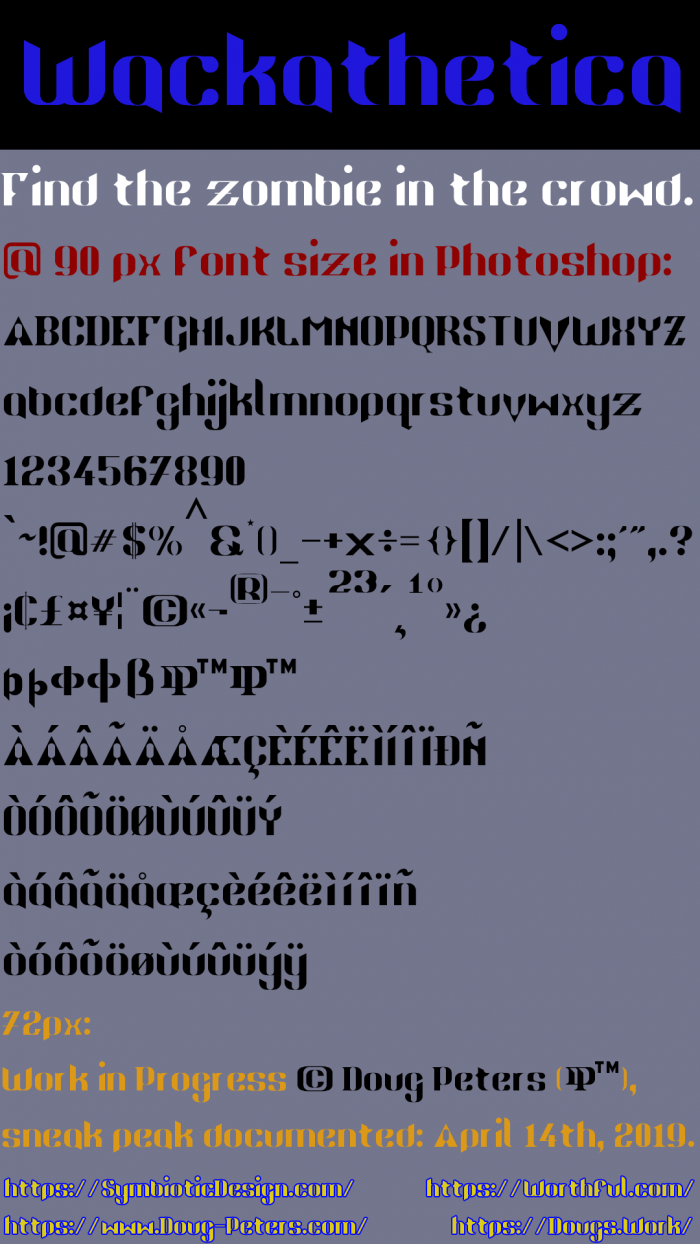
•  Wackathetica is derived from Struck, both fonts were created by me (Doug Peters).
Wackathetica gets its name from the idea that I borrowed styling cues from serif, slab serif, and sans serif, even goth cuts and rounded font typographic designs to make a pretty wacky typeface.  A couple of alternates are included in the unicode Halfwidths and Fullwidths register.
Vertical lines are thick, horizontal lines are skinny.
I classify it as: Hybrid, Semi-Serif, Casual.
Weight: Extrabold.
Originally, I went in to kern Struck, but before I did, as this is one of my eldest fonts, I decided trying to improve it.  But then, I started noticing a nice little design I was trying to do, but wouldn't work with the overall design, so I cloned it and created a new font.  But then, I started changing how I was wanting that one to look, too.  So I created yet another clone... this one, Wackathetica.
Now, maybe I'm crazy, but I cannot find the second clone.  ???
I had this written in the description...
"Wackathetica is derived from , which is derived from Struck, all fonts created by Doug Peters."
Only, I can't find it.  So, maybe I am crazy.  That is worrisome.  Argh.  Just as I hit retirement I start losing my mind.
Note to self: Fix 9, superscript 2, superscript 3 and W.  ...DONE
Just a note:  Because there is such a large line space, or space between lines, I don't think this version of the font should be available for public consumption.  It needs some tweaking in a font editor where I can control the line height and tracking.  But before I get there, I want to finish the Latin Supplemental characters, plus I will kern it here, both things to accomplish here Fontstruct, first (and yet to do).
OK, I see I have lots yet to do:
Add the appropriate accents to the stray U's and Y's.  DONE
Clean-up my logo TMs so that they look like the TMs in the font.  DONE
Clean-up the last TM so that it is appropriate for this font.  DONE
Restyle the ^ or reposition it so that it doesn't make the line height too tall (as it is).  DONE
Kern it. - Capital combos DONE. - Lowercase combos DONE. - Upper to Lower cases DONE.
Finish the Latin Supplemental.  DONE
Add some more punctuation (DONE), currency signs (DONE) and symbols (DONE)... but I can add more later, let me know if you have any glyph requests.
But, it's getting there.  Time to see what everyone else thinks...
the A is really unique I like it alot. but i have to say i can't stand the colors in ur font sample.
first, full black and full blue is really bad i hope ur owns eyes can tell. An easy way to solve this is simply unsaturate the blue. second, full white is a terrible color (imo), You can just make it a bit darker.
sorry giving more oppinions on colors than typography ;P
LOL.  No prob, @JingYo.  I'll be in less of a rush with the next sample.  That was just a sneak peak, anyway.  I've already changed it a lot, but I want to kern it before I'm done.  I'll try to pick a more pleasant palette next time.
I would think so.  But I think JingYo has a point.
I was tired actually more interested in getting a simple character sample made, I wasn't really thinking about colors and most wound-up being inspired by my school colors (from a couple colleges).
Oh well, that has been a criticism of my font sample images before, though I have a certain fascination with optical illustions and proving legibility of the font with a busy or psychedlic design scenario.
I'll put more thought into it next time.